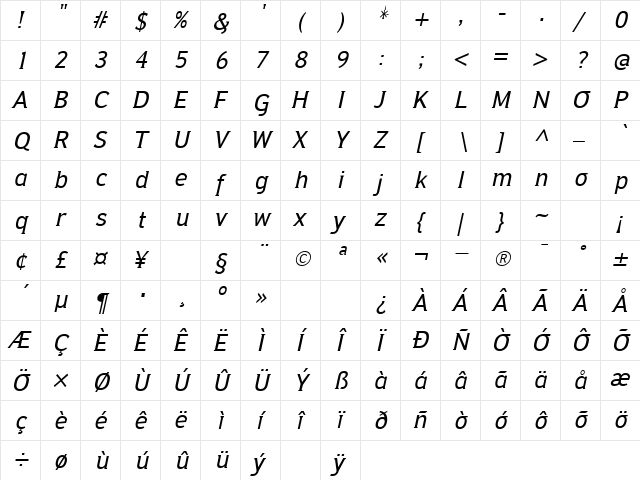
IdeologicaItalic Regular
Design Context for IdeologicaItalic Typeface
IdeologicaItalic is a composed and adaptable typeface that performs quietly and consistently across a wide range of design contexts. Its italic angle brings a sense of urgency and motion to the letterforms.
Pro Tip: Use IdeologicaItalic for emphasis, pull quotes, and subheadings where its slanted energy can add rhythm to the layout.